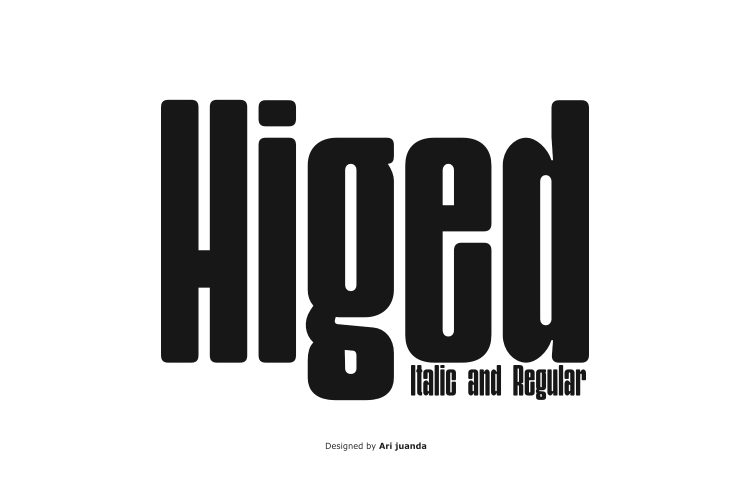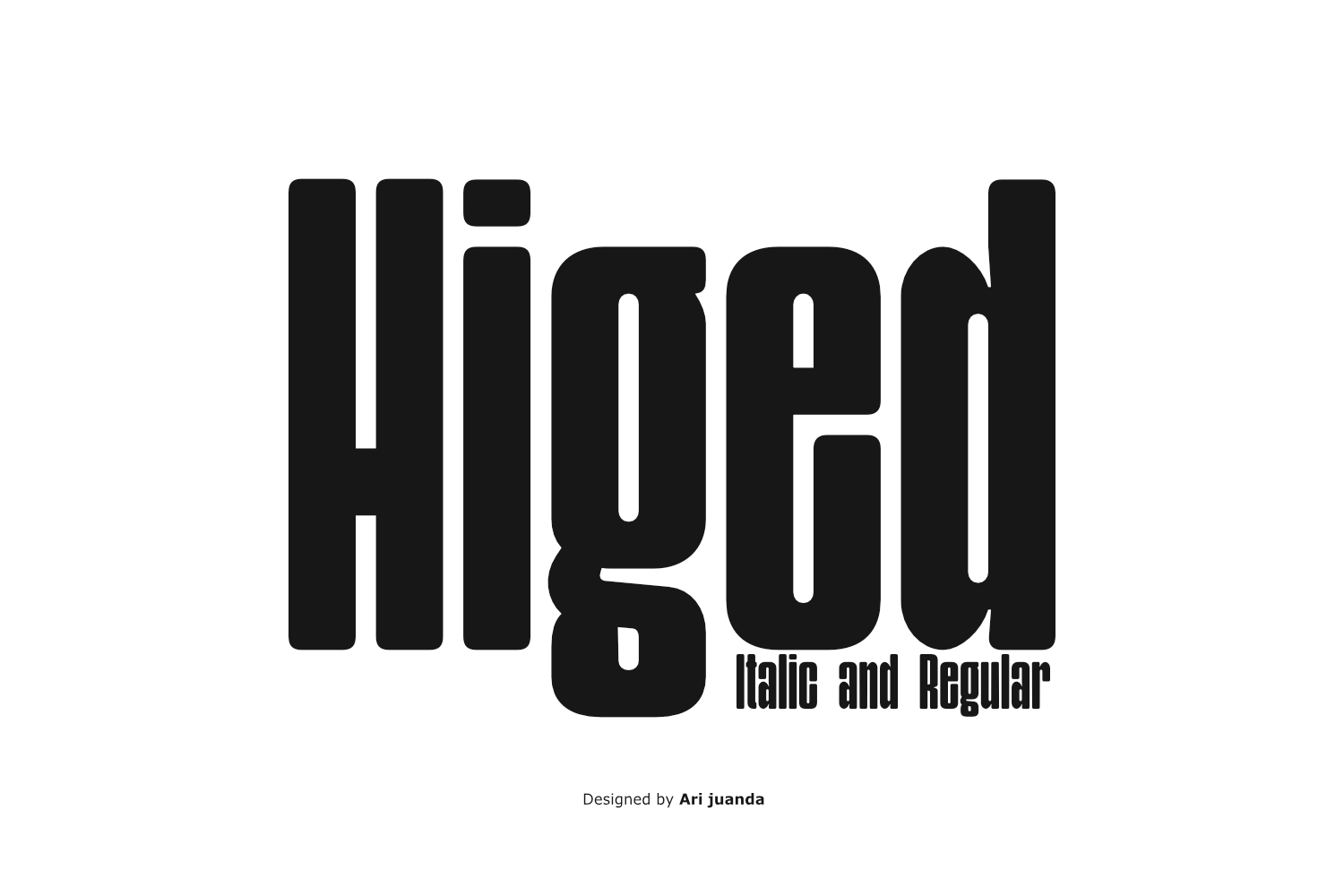
Higed – Bold Condensed Display Font
Meet Higed, a bold condensed display font designed for powerful headlines, posters, logos, branding, packaging, apparel graphics, and modern visual identities. Built with tall and narrow proportions, heavy rounded letterforms, and distinctive geometric ink trap details, Higed gives typography a strong presence while using minimal horizontal space.
Higed Bold Condensed Display Font
Higed is built around an ultra-condensed display style, creating tall, compact, and impactful typography. Its narrow proportions allow designers to create large headlines and titles without requiring excessive horizontal space. This makes Higed especially effective for posters, editorial layouts, magazine covers, packaging, advertising, sports graphics, apparel designs, and other projects where typography needs to command attention.
The heavy construction gives Higed a confident visual character, while its rounded letterforms prevent the design from feeling overly rigid. This combination creates a balance between strength and smoothness, making the typeface suitable for both expressive display compositions and clean modern branding.
Distinctive Geometric Ink Traps
One of Higed’s defining characteristics is its carefully designed geometric ink trap treatment. These details appear around important stroke intersections and inner angles, including areas of letters such as M, N, K, R, V, W, and Y.
Rather than acting merely as technical refinements, the ink traps become an important part of Higed’s visual identity. The geometric cuts introduce subtle contrast into the heavy letterforms and give the typeface a recognizable contemporary appearance.
This detail is particularly effective at large display sizes, where the structure of each letter becomes an important part of the overall graphic composition.
Higed Regular & Italic
Higed Regular is the core style of the family. Its heavy weight, narrow proportions, rounded construction, and geometric ink traps create a strong foundation for headlines, logos, titles, posters, and branding.
Higed Italic introduces a forward-slanted character while maintaining the condensed structure and bold visual presence of the Regular style. The italic version can bring additional movement, energy, and attitude to typography, making it useful for dynamic headlines, sports graphics, racing-inspired designs, advertising, and contemporary visual identities.
Having both Regular and Italic styles gives designers greater flexibility when building typographic hierarchy and contrast.
Why You’ll Love Higed
Higed is more than a simple condensed typeface. Its character comes from the combination of ultra-condensed proportions, heavy strokes, rounded forms, and distinctive geometric ink traps.
The ultra-condensed structure makes Higed useful when you need typography to appear large and powerful within a limited space. The tall proportions can help create dramatic headlines while maintaining a compact overall composition.
The bold rounded construction gives the typeface a strong but approachable visual quality. Meanwhile, the geometric ink traps introduce distinctive details that help individual characters stand apart.
The Italic style provides another visual direction for compositions that require a stronger sense of motion and energy.
Together, these characteristics make Higed a versatile choice for designers looking for typography that feels bold, tall, narrow, modern, distinctive, and highly visible.
Perfect For
- Logo Design & Brand Identity
- Bold Typography
- Poster Design
- Headlines & Titles
- Editorial Design
- Magazine Covers
- Packaging Design
- Apparel & T-Shirt Graphics
- Sports & Racing Graphics
- Advertising Campaigns
- Social Media Graphics
- Album & Music Artwork
- Event Posters
- Product Branding
- Modern Display Typography
Font Features
- Bold Condensed Display Font
- Ultra-Condensed & Tall Letterforms
- Regular Style
- Italic Style
- Geometric Ink Trap Details
- Rounded Letterform Construction
- Strong Vertical Proportions
- Latin Character Support
- Accented Characters
- OpenType Ordinals
- OpenType Superscript
Make Every Headline Stand Taller
Higed is a bold condensed display font created for typography that needs to be seen. Its ultra-condensed proportions, powerful weight, rounded forms, distinctive geometric ink traps, and dynamic italic style make it a strong choice for logos, posters, branding, packaging, headlines, apparel graphics, and modern visual design.
When space is limited but visual impact matters, Higed brings height, strength, and character to your typography.